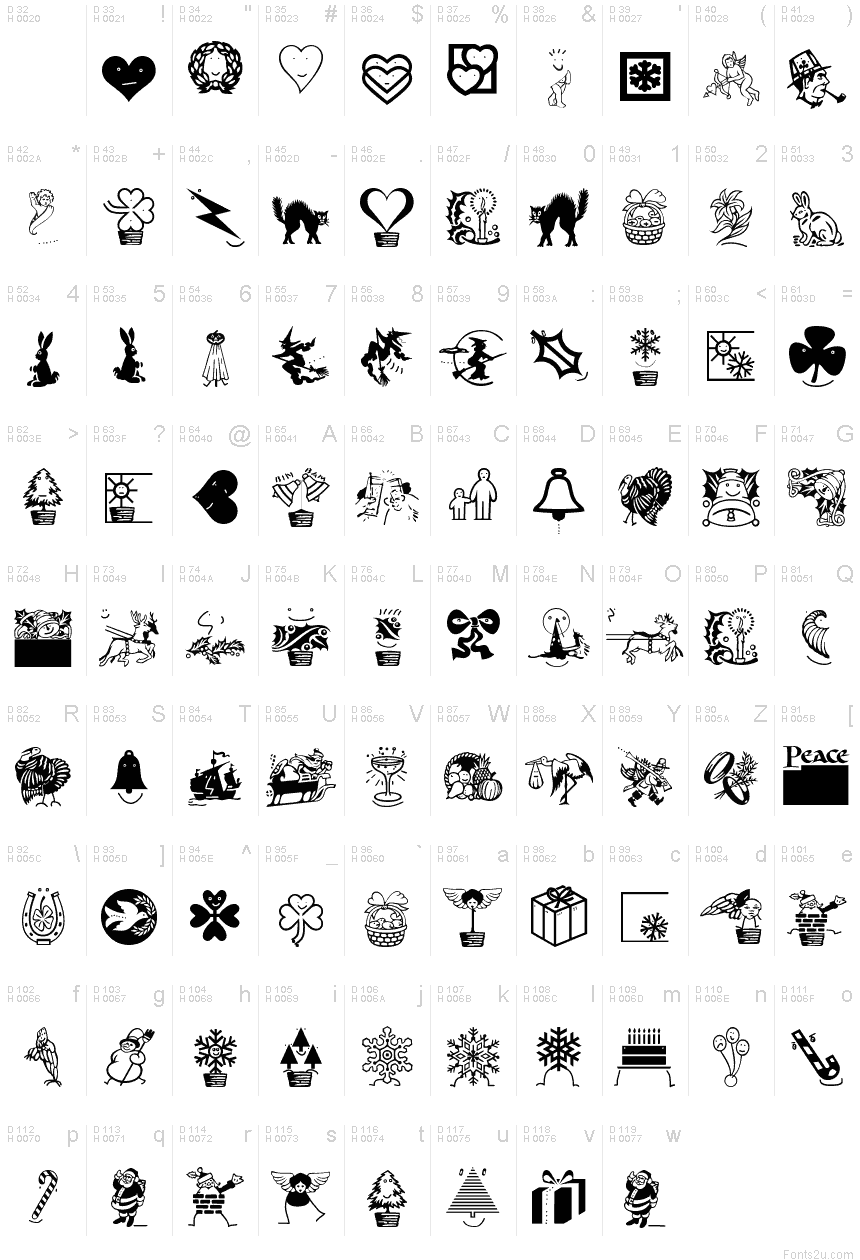
OldFriends by Mnfred Klein is a free cartoon dingbat font filled with whimsical figures and wintry symbols. The lively line drawings use uneven contours, exaggerated expressions, and chunky areas of detail and recall hand-inked cartoon spot illustrations.
Children's publishing and seasonal gift packaging are very different settings, but both suit its comic storytelling and friendly outlined forms. The characters could also enliven holiday cards and winter event posters with small moments of visual humor. Because each symbol reads as a complete illustration, it can mingle directly with snow scenes, festive patterns, or other playful artwork.